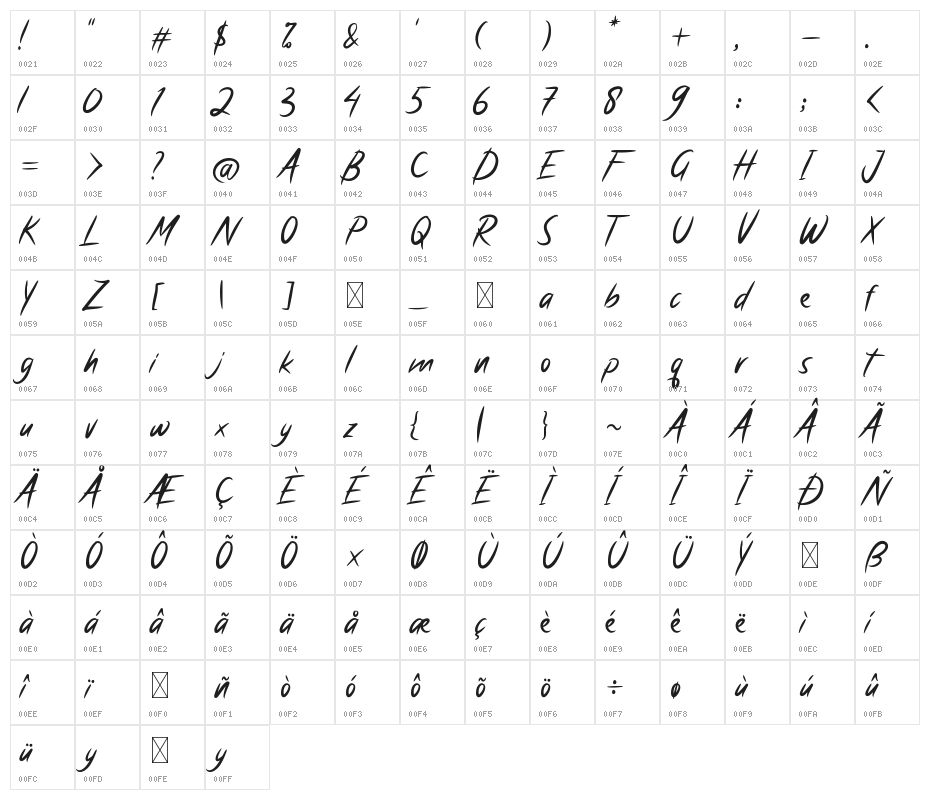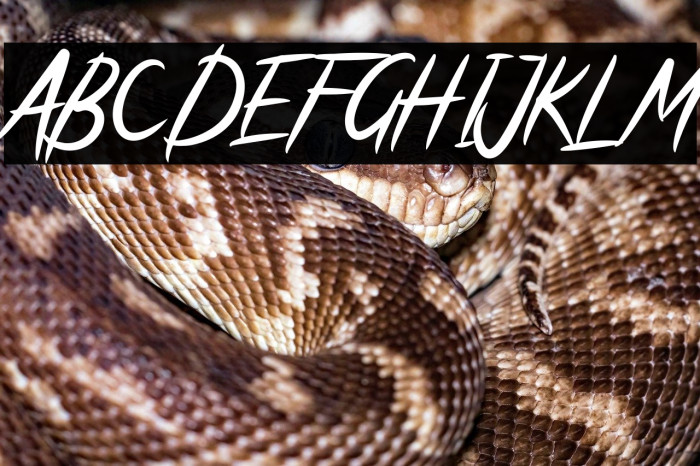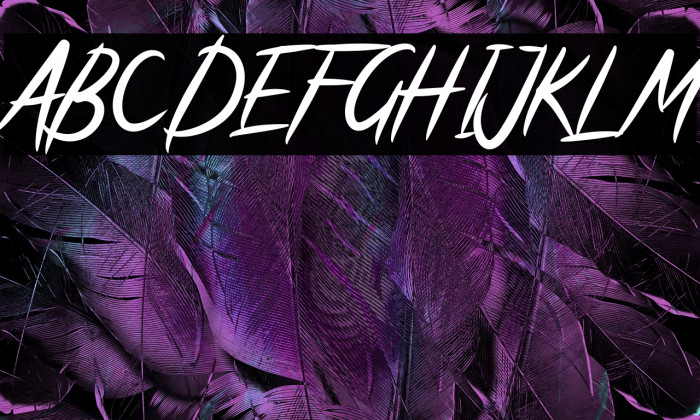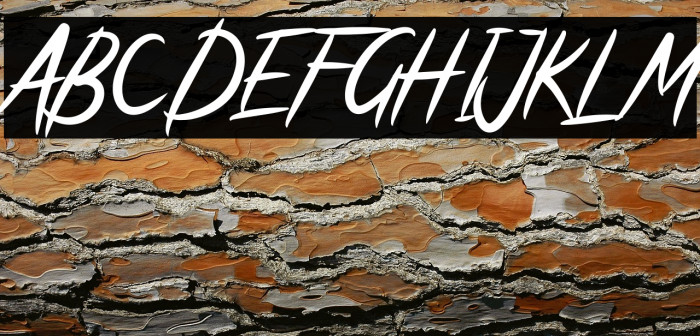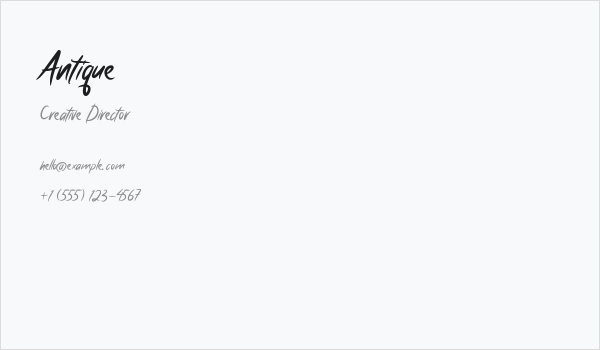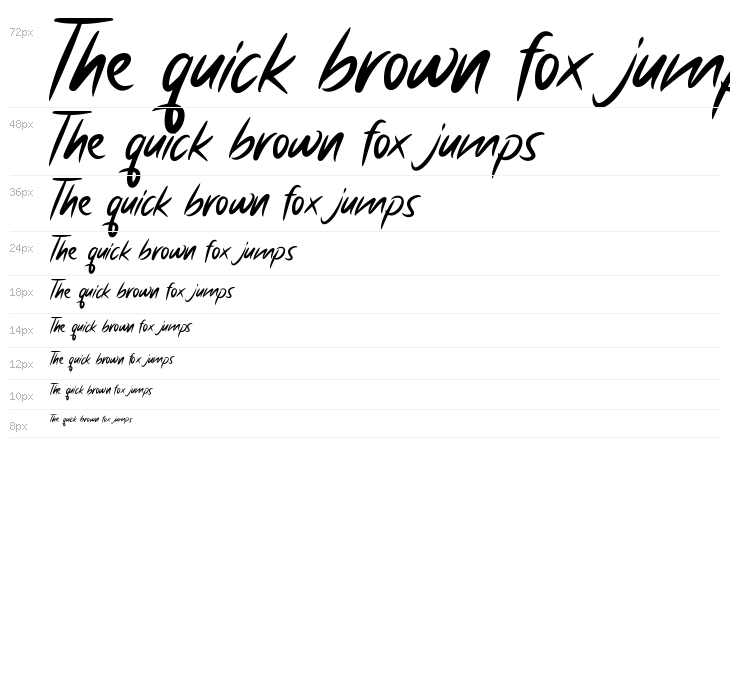
Antique Font
Antique Description
This font exhibits a dynamic and expressive handwritten style, characterized by its fluid and sweeping strokes. The uppercase letters are bold and slightly slanted, giving a sense of motion and energy. The lowercase letters maintain a consistent flow, complementing the uppercase with their smooth curves and loops. Numbers and special characters follow the same lively aesthetic, ensuring uniformity across all elements. The font's overall appearance is both artistic and informal, making it suitable for creative and personal projects.